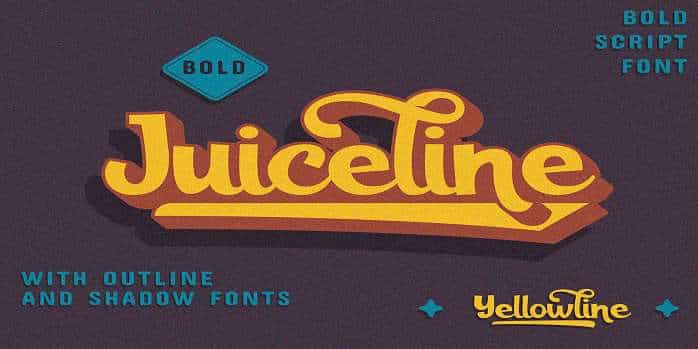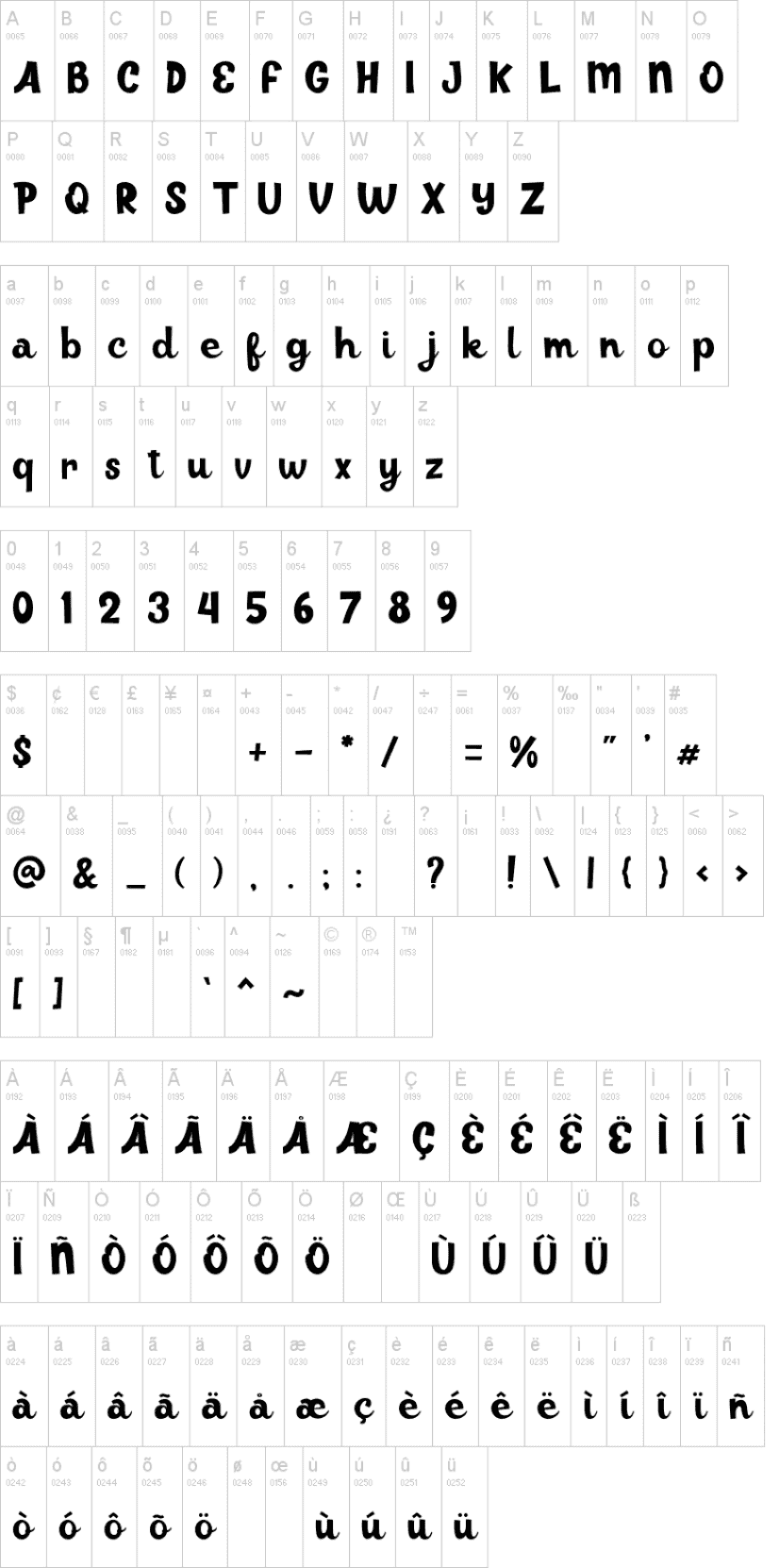
Juiceline is bold script font with outline and shadow fonts. The font is equipped with opentype features. Which is including alternative characters such as : contextual alternates, stylistic alternates, and swash variant.